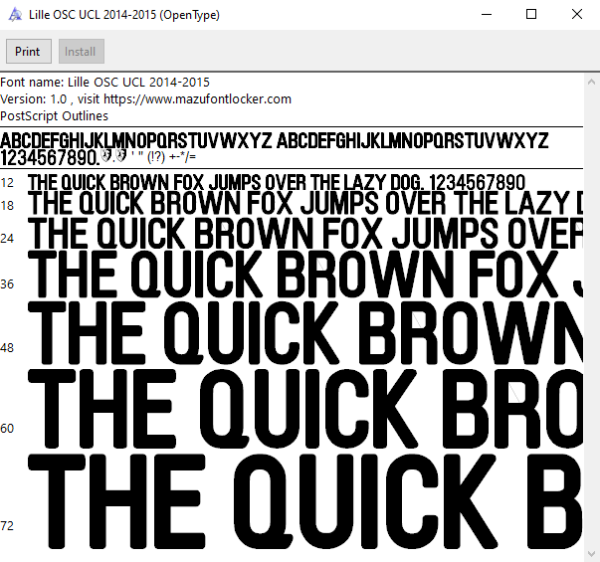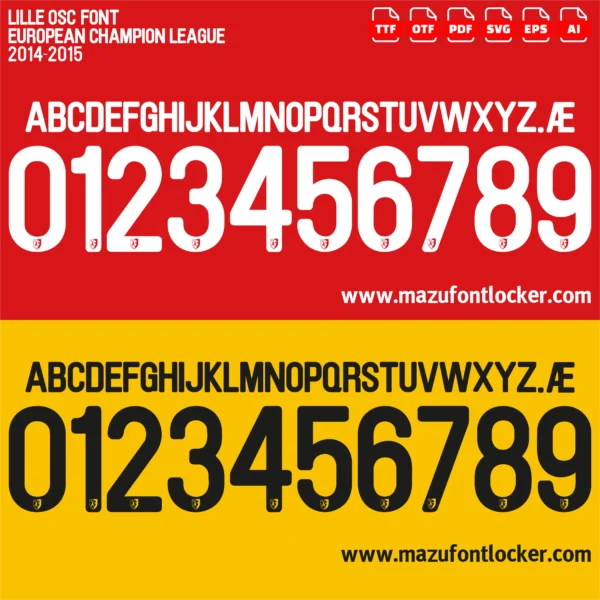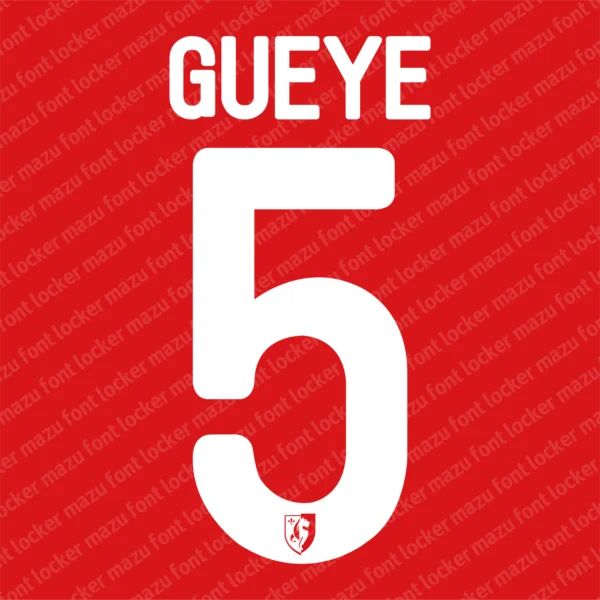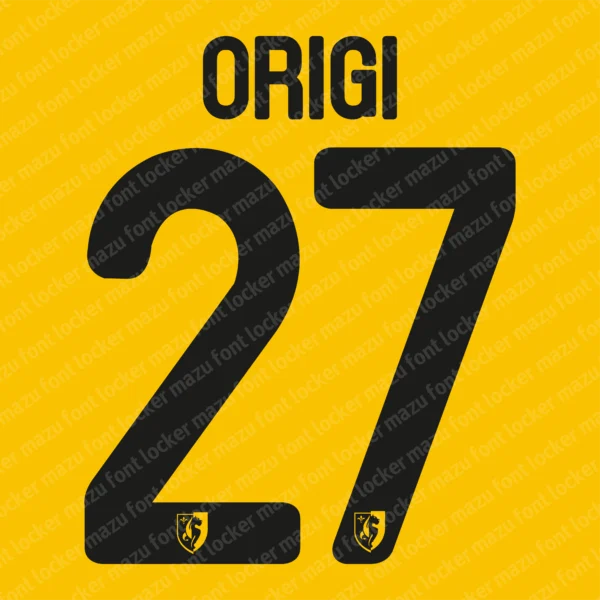
Lille OSC UCL 2014-2015 Font Vector – Epic Les Dogues Champions League Quest
This font captures the sharp, commanding, and thunderous lettering that perfectly embodies Lille OSC’s iconic club identity, proud French football heritage, never-back-down mentality, and raw European force — delivering unmatched authenticity, premium quality, volcanic energy, and elite continental dominance for professional jersey mockups, dynamic football graphics, premium sports branding, passionate fan creations, and high-end design projects.
Lille OSC UCL 2014-2015 Font Vector – Bold Modern Matchday Typeface
The Lille OSC UCL 2014-2015 Font Vector is a premium typeface that accurately recreates the distinctive match lettering used by Lille OSC during their 2014-2015 UEFA Champions League campaign. This high-quality vector font kit captures the bold, clean, and instantly recognizable typography that defined the visual identity of the French club on the European stage during that season.
Designed for professional designers, football enthusiasts, jersey collectors, and passionate Lille OSC fans, the Lille OSC UCL 2014-2015 Font Vector delivers exceptional authenticity for creating realistic jersey mockups, football merchandise, social media graphics, match posters, squad designs, and custom fan artwork. Every character has been carefully recreated to reflect the powerful and precise visual style that appeared on kits throughout that memorable European campaign.
Why Choose Lille OSC UCL 2014-2015 Font Vector
This font stands out thanks to its precise vector construction and authentic club-inspired styling. Every letter and numeral has been meticulously recreated to match the distinctive football lettering aesthetic used by Lille OSC during their 2014-2015 UEFA Champions League journey.
Whether you’re producing professional football kit templates, custom jersey concepts, or eye-catching football content, the Lille OSC UCL 2014-2015 Font Vector delivers a genuine match-ready appearance inspired by the official typeface of one of France’s most historic clubs on the European stage.
The lettering featured in the Lille OSC UCL 2014-2015 Font Vector combines clean geometric lines with bold modern proportions. The result is a premium and highly readable typeface that reflects Lille OSC’s contemporary visual identity, sharp professionalism, and the high-intensity atmosphere of UEFA Champions League football during the 2014-2015 season.
• Complete uppercase A–Z alphabet and numbers 0–9 in authentic Lille OSC UCL 2014-2015 inspired style
• Special Lille OSC badge glyph – Press the “:” (Colon) key to insert the club badge
Lille OSC UCL 2014-2015 Era
The 2014-2015 season marked a significant chapter in Lille OSC’s European history, featuring competitive group stage performances and the continued presence of the French club on the UEFA Champions League stage. The distinctive matchday typography used during this campaign became closely associated with Lille’s identity in Europe.
The Lille OSC UCL 2014-2015 Font Vector is an independently designed typeface package inspired by the official shirt lettering and visual identity associated with Lille OSC during the 2014-2015 UEFA Champions League season. It has been carefully recreated for football enthusiasts, graphic designers, collectors, jersey creators, and fans producing custom football concepts, digital artwork, and fan-made projects. Please note that this is a fan-made design resource and is not an official product of Lille OSC, Ligue 1, UEFA, or any associated organization.